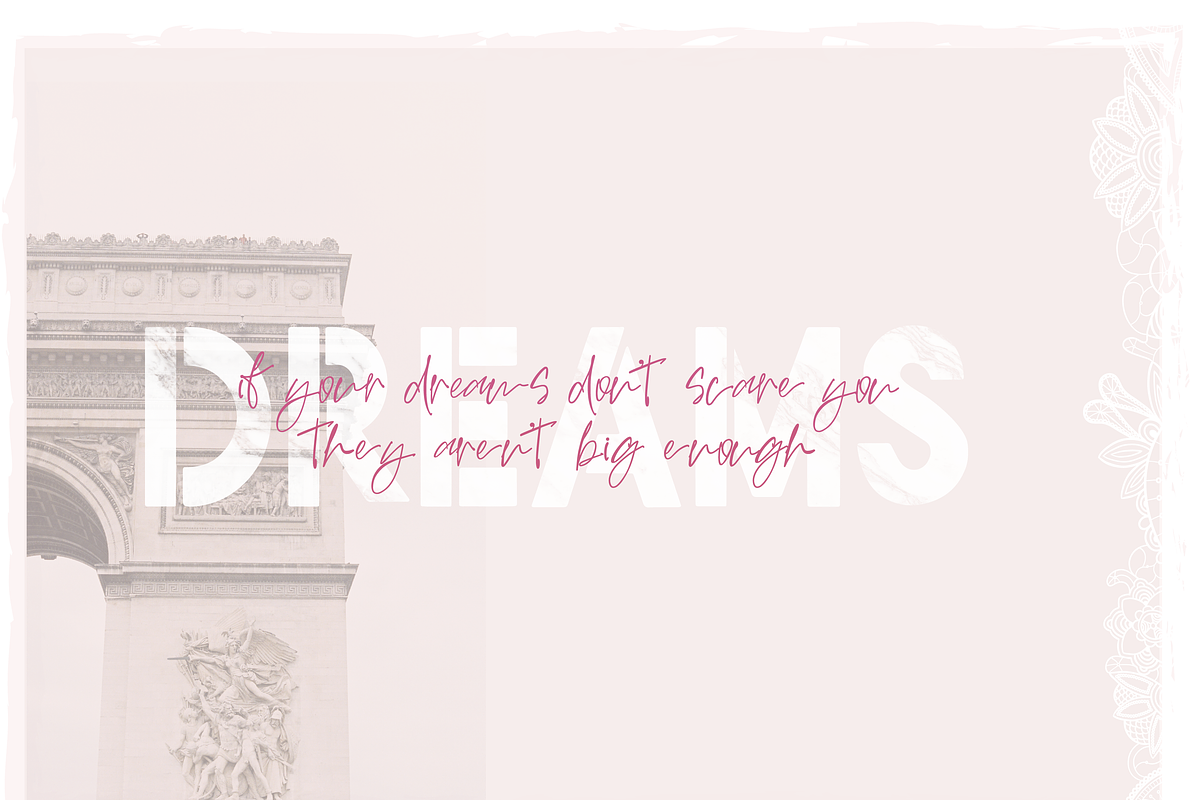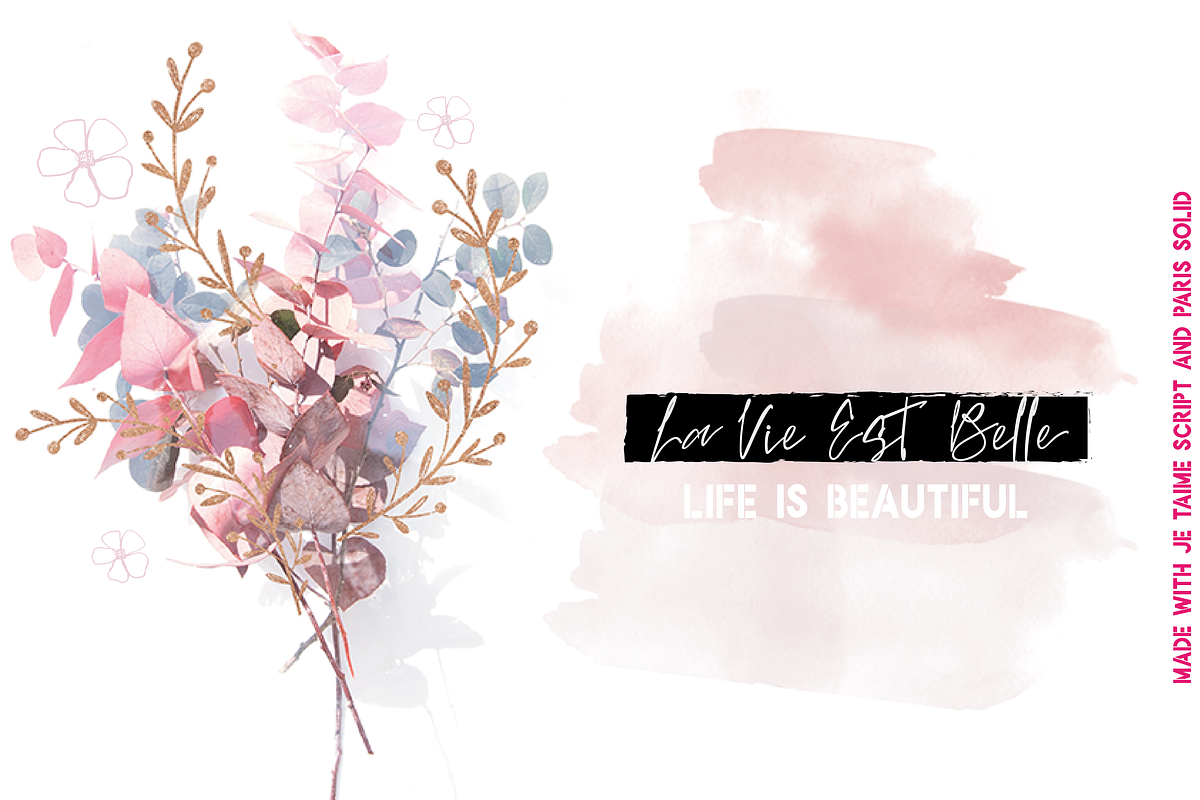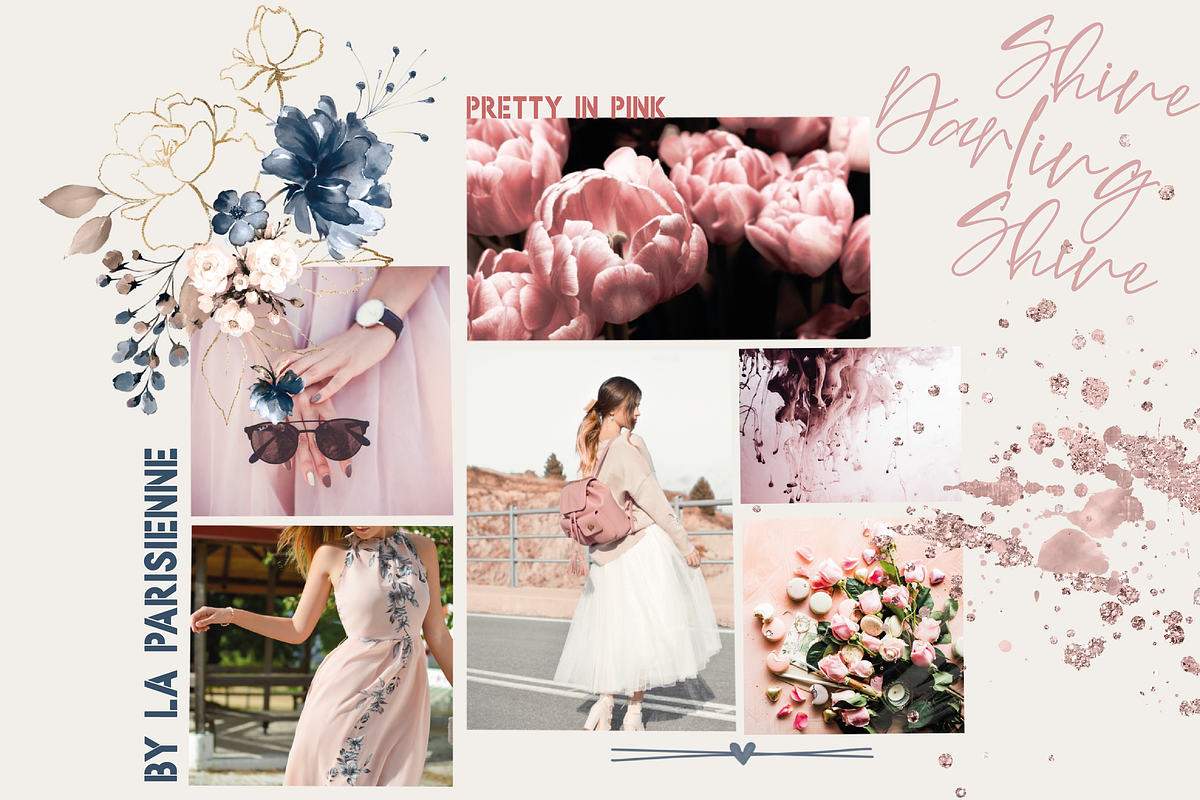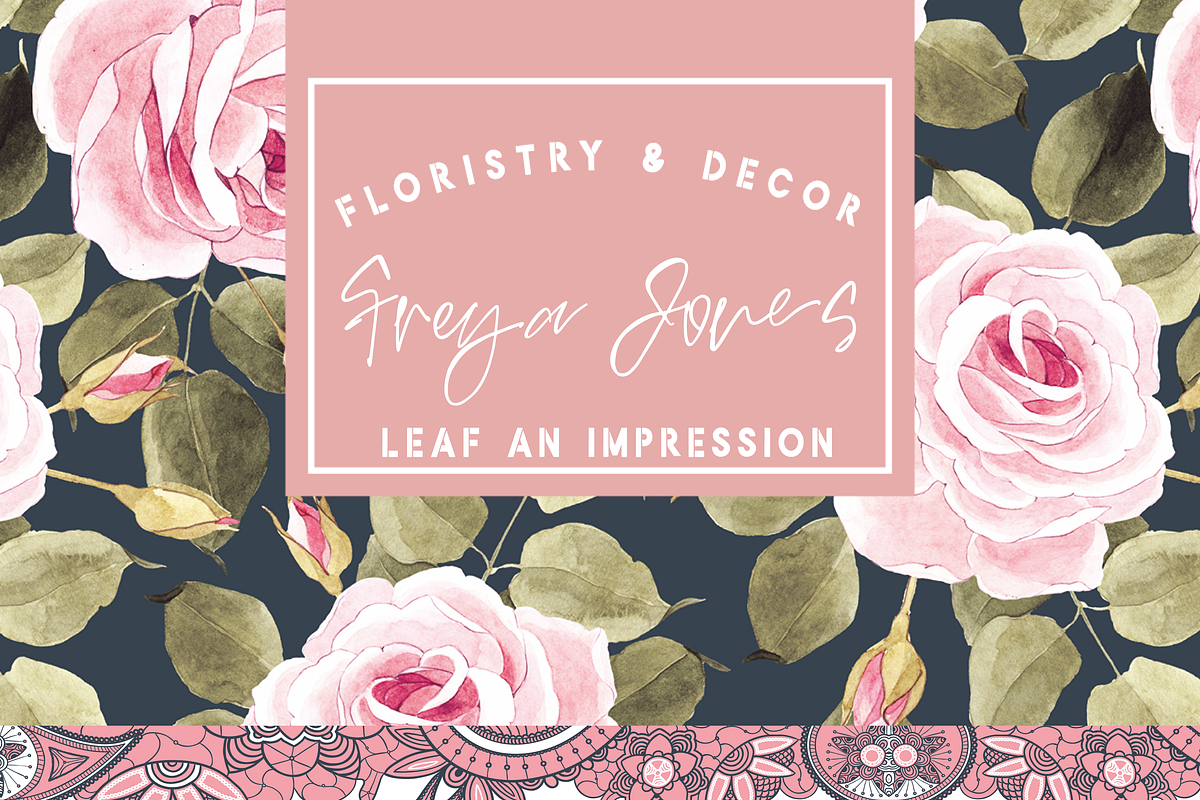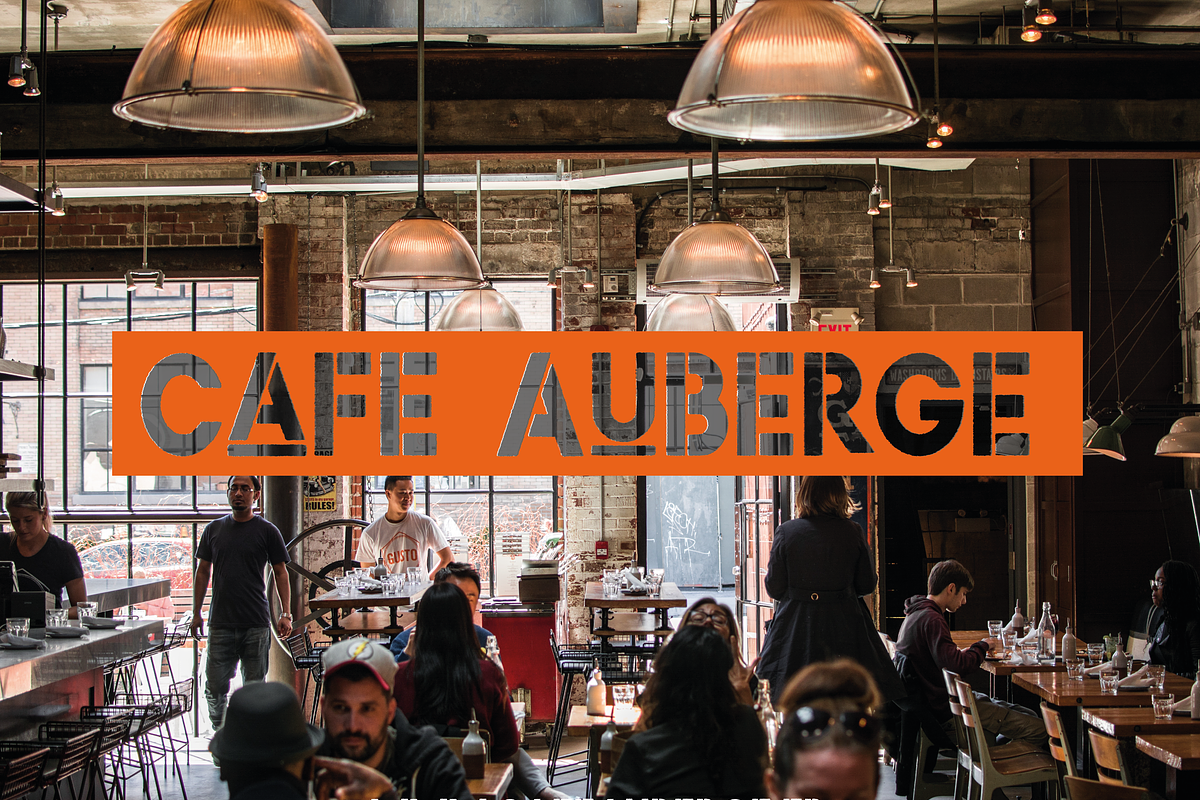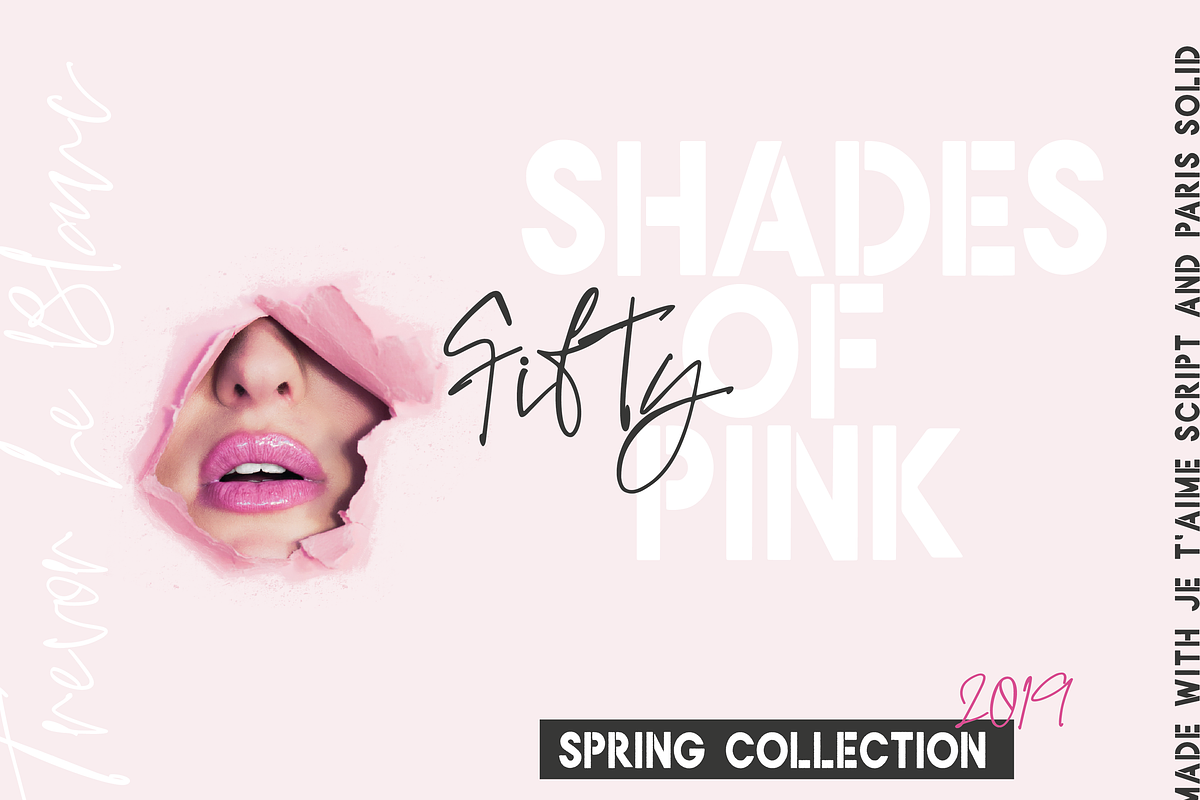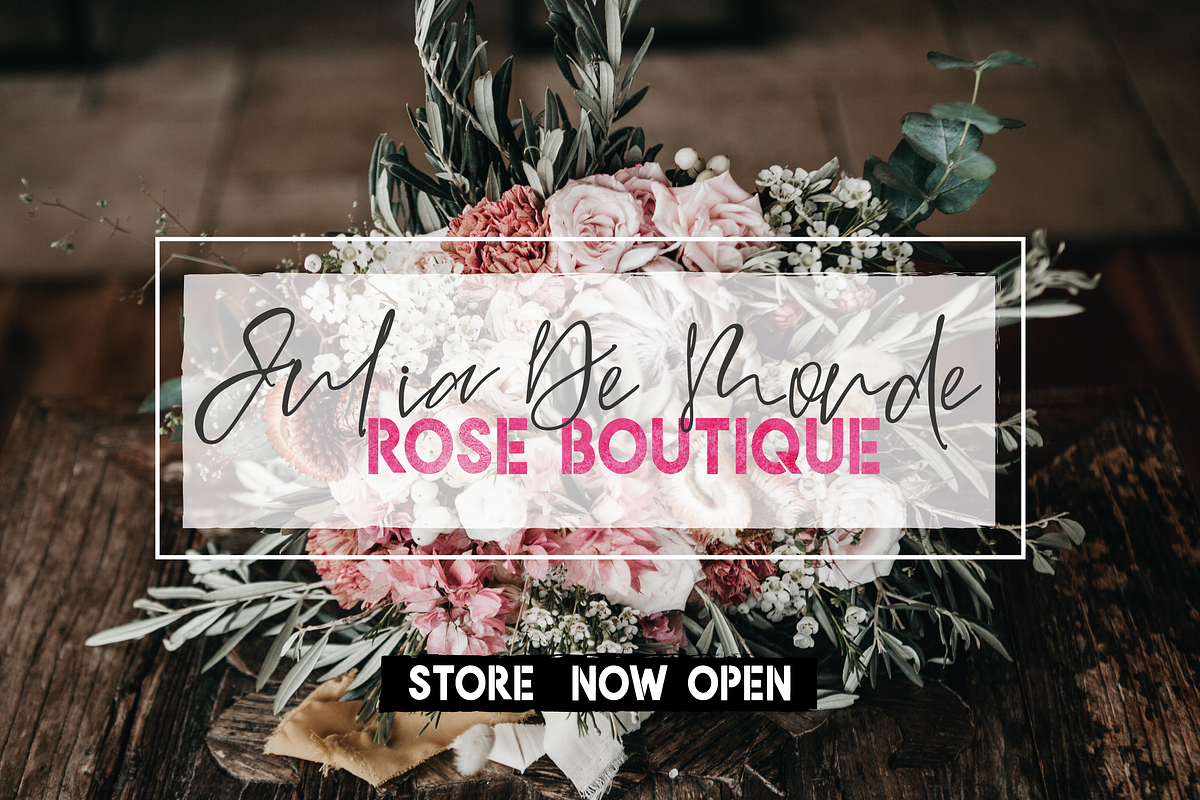
Paris Je T'aime | Font Duo
“PARIS, Je T'aime” Font Duo is a romantic typeface combination that is stylish and beautiful with its casual handwritten brush typeface style.
With 86 natural looking stylistic ligatures, this classy font combo is perfect for moodboards, logos, social media, scrapbooking designs and stationery. It can even be used to make fun merchandise.
Paris Font includes two versions:
Paris Solid with uppercase alphabet (only), letter alternatives, numerals, punctuation and multilingual support.
Paris Rough with uppercase alphabet (only), letter alternatives, numerals, punctuation and multilingual support.
Je T'aime Script includes:
Full upper and lowercase alphabet
7 Alternative characters
86 Stylistic ligatures and double letters
Numbers and Punctuation
Foreign language support